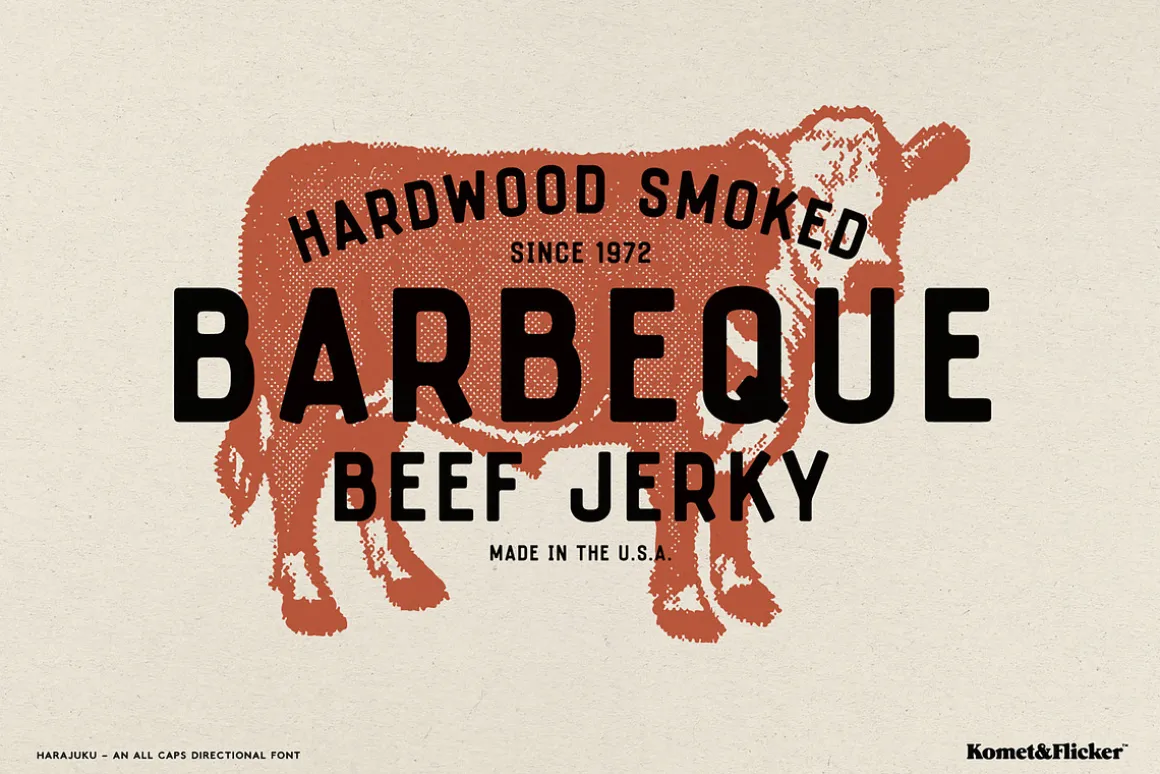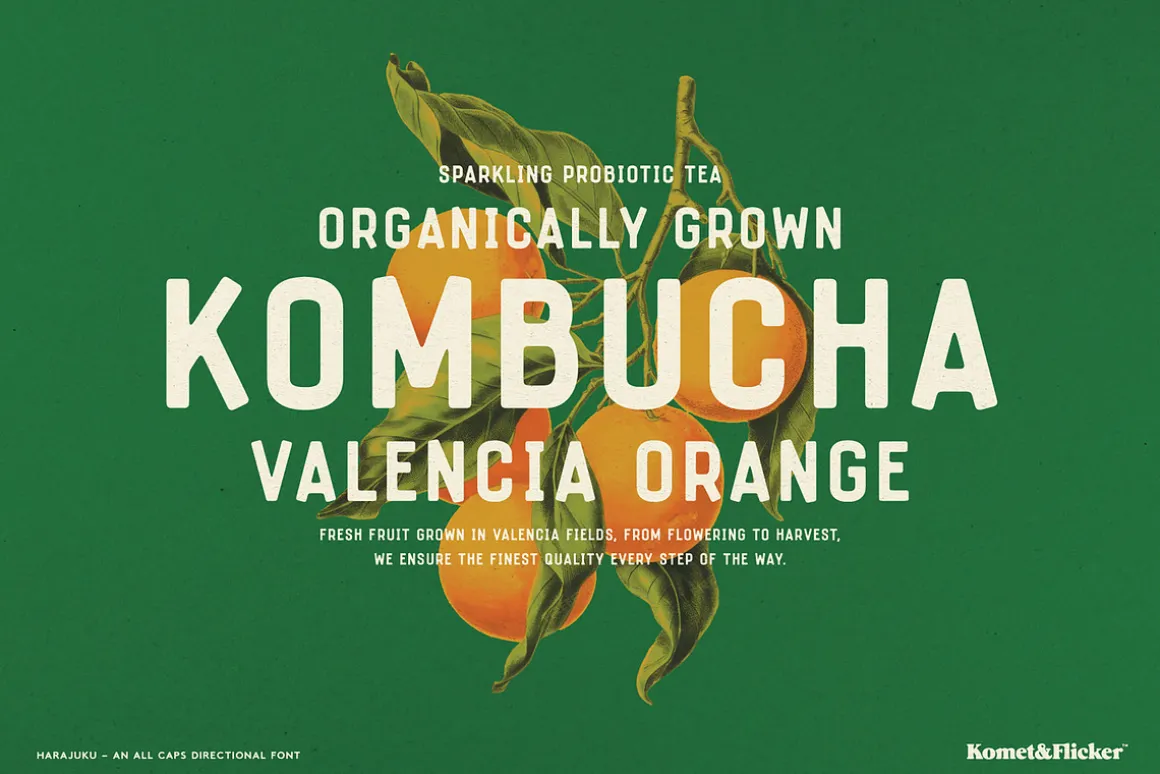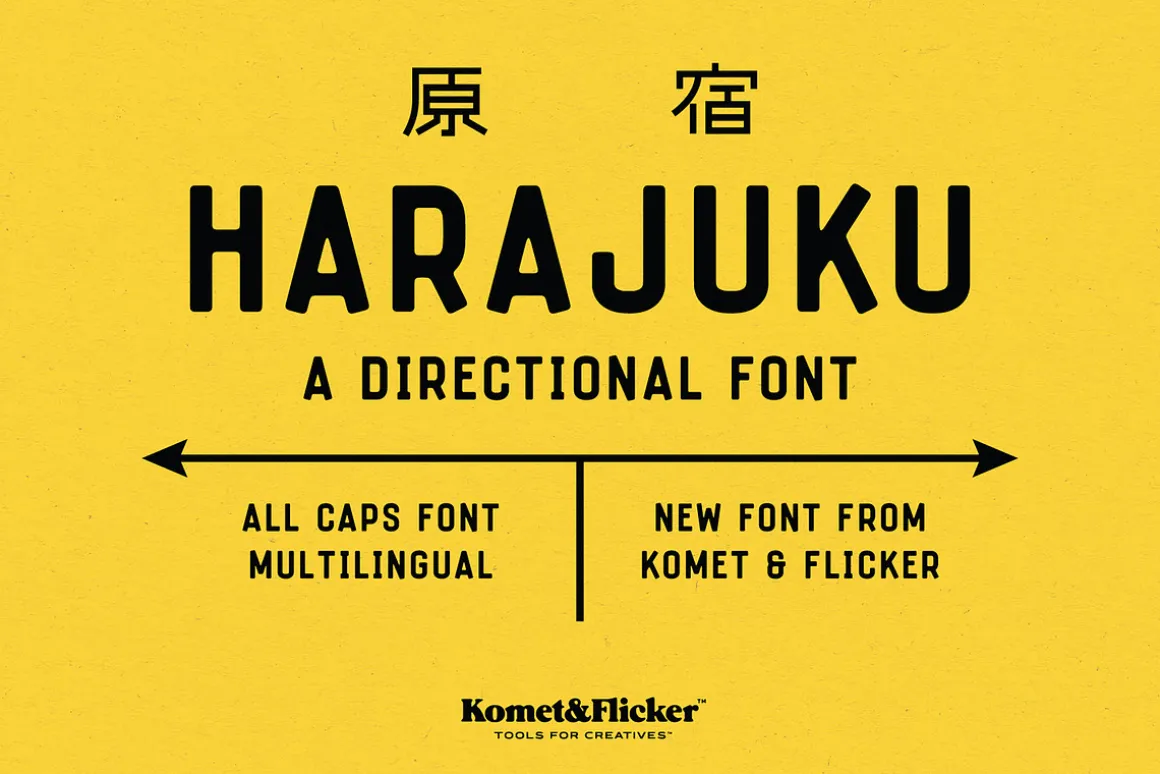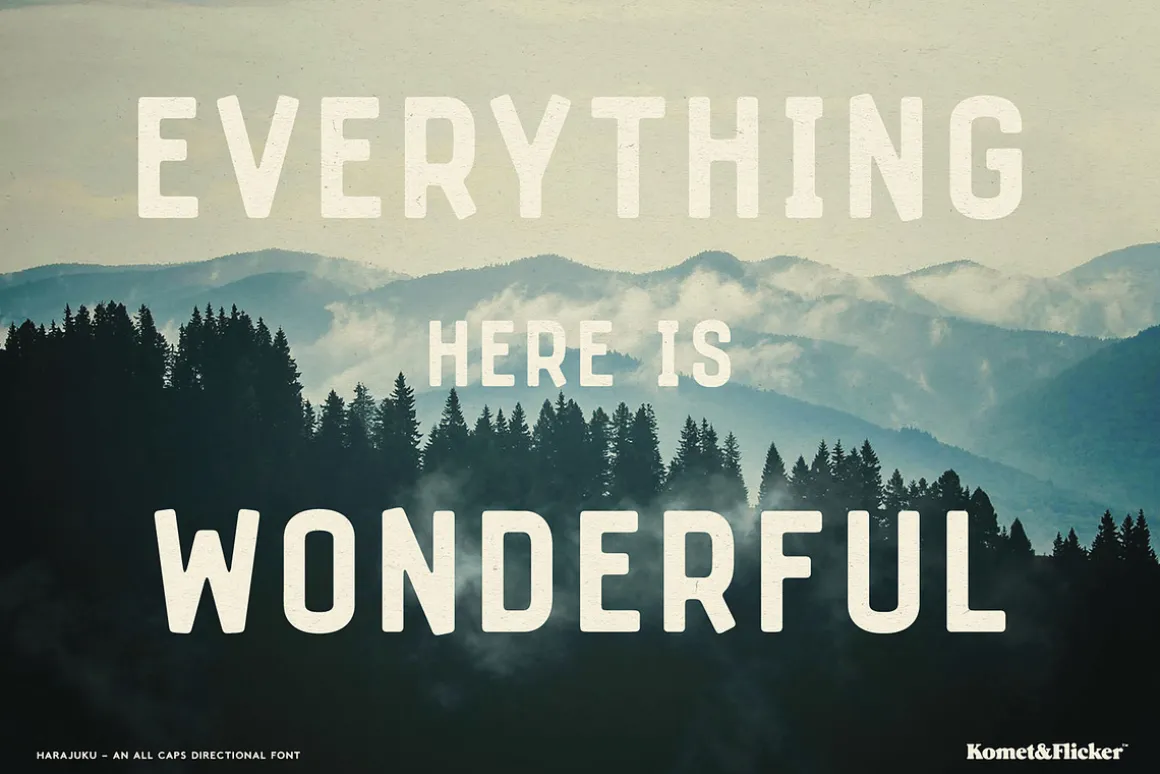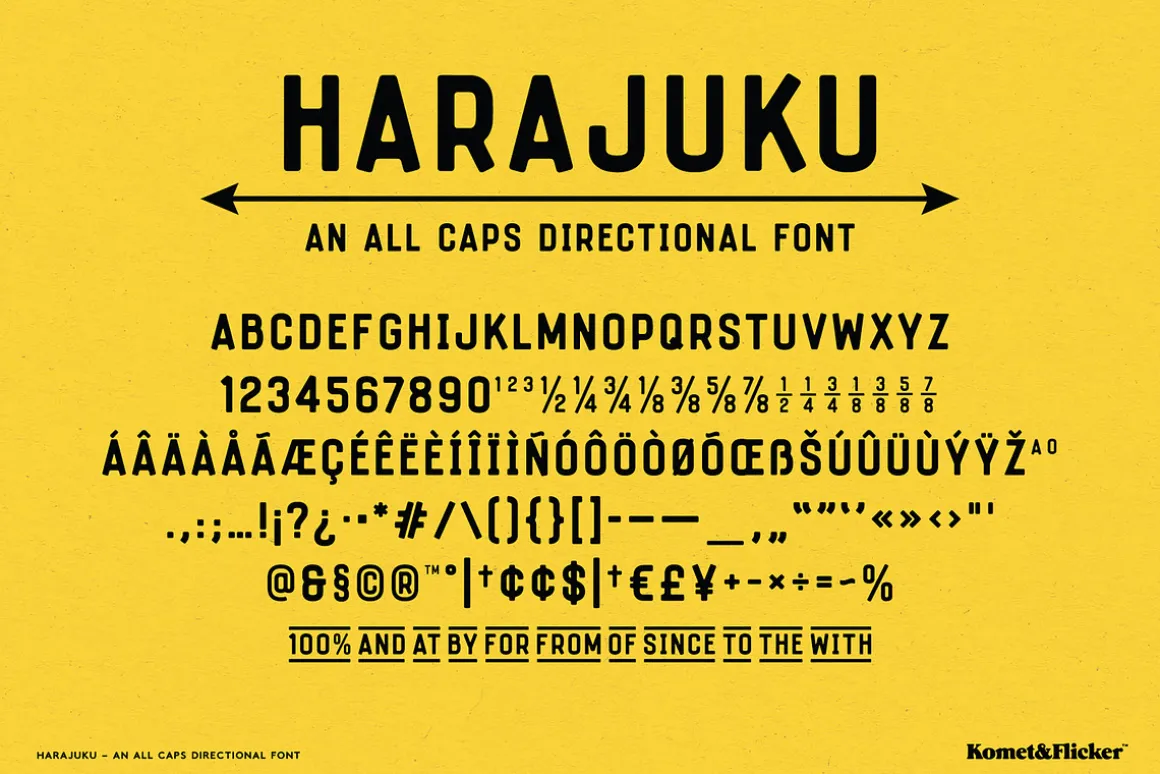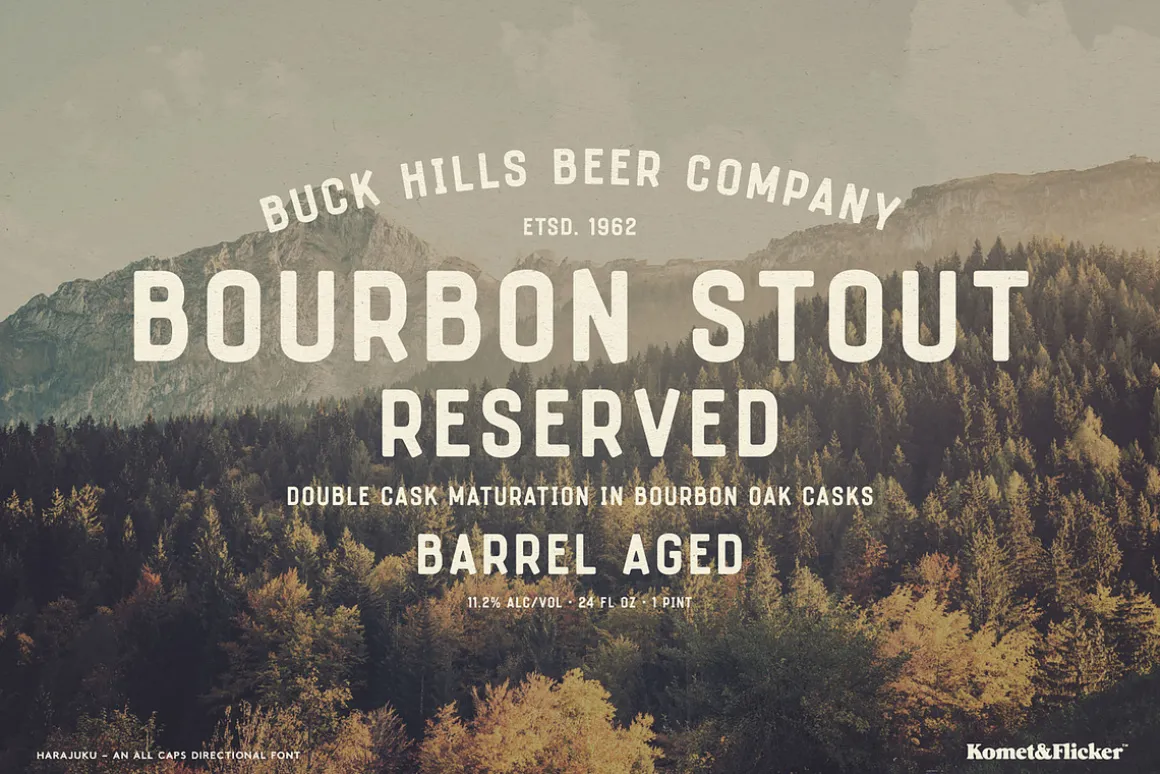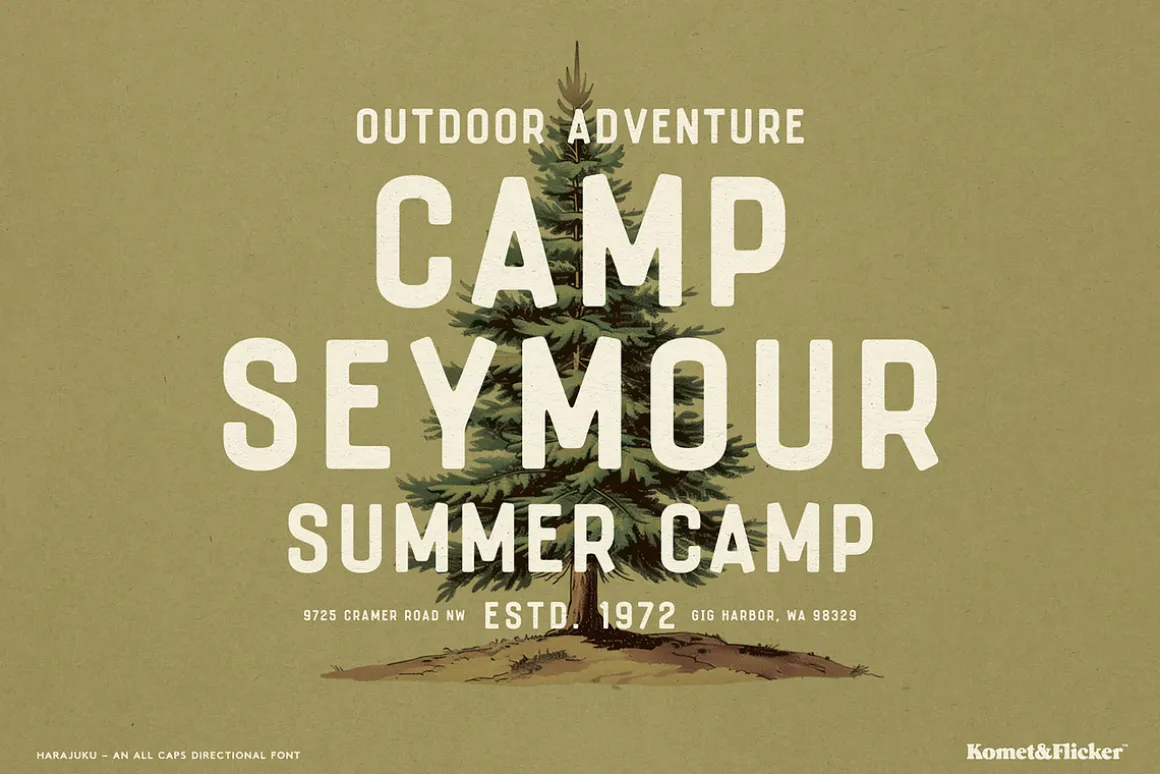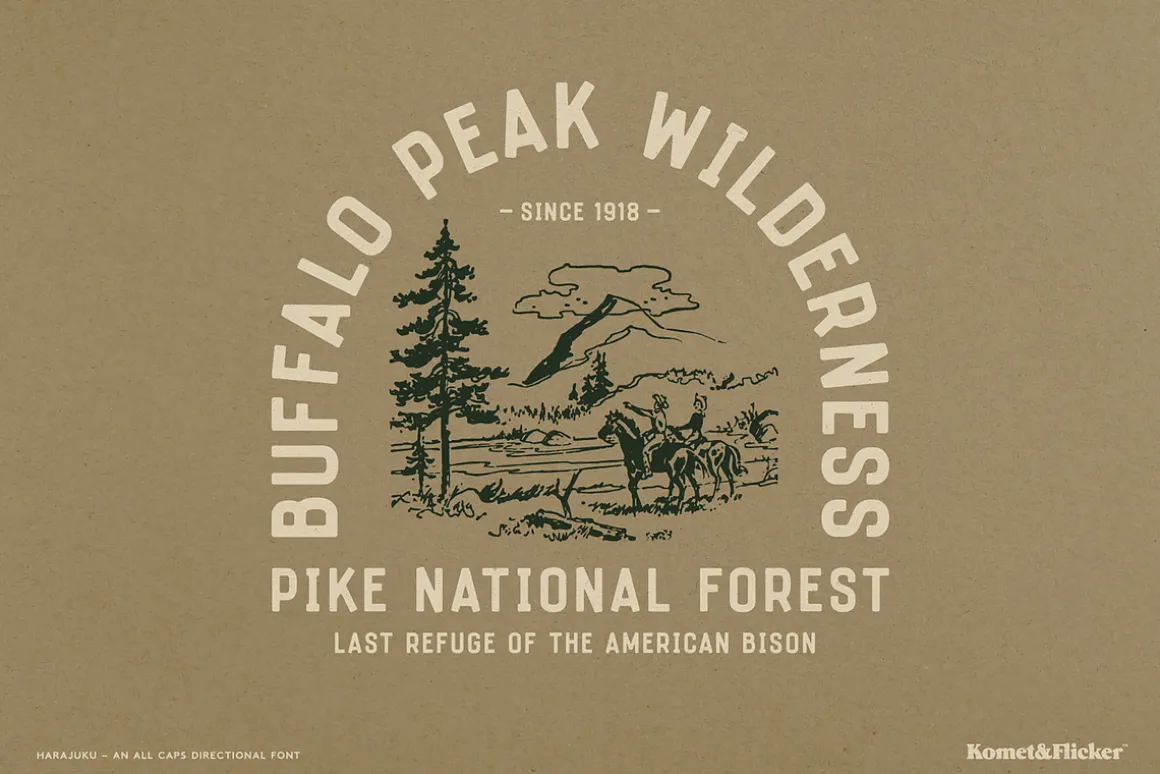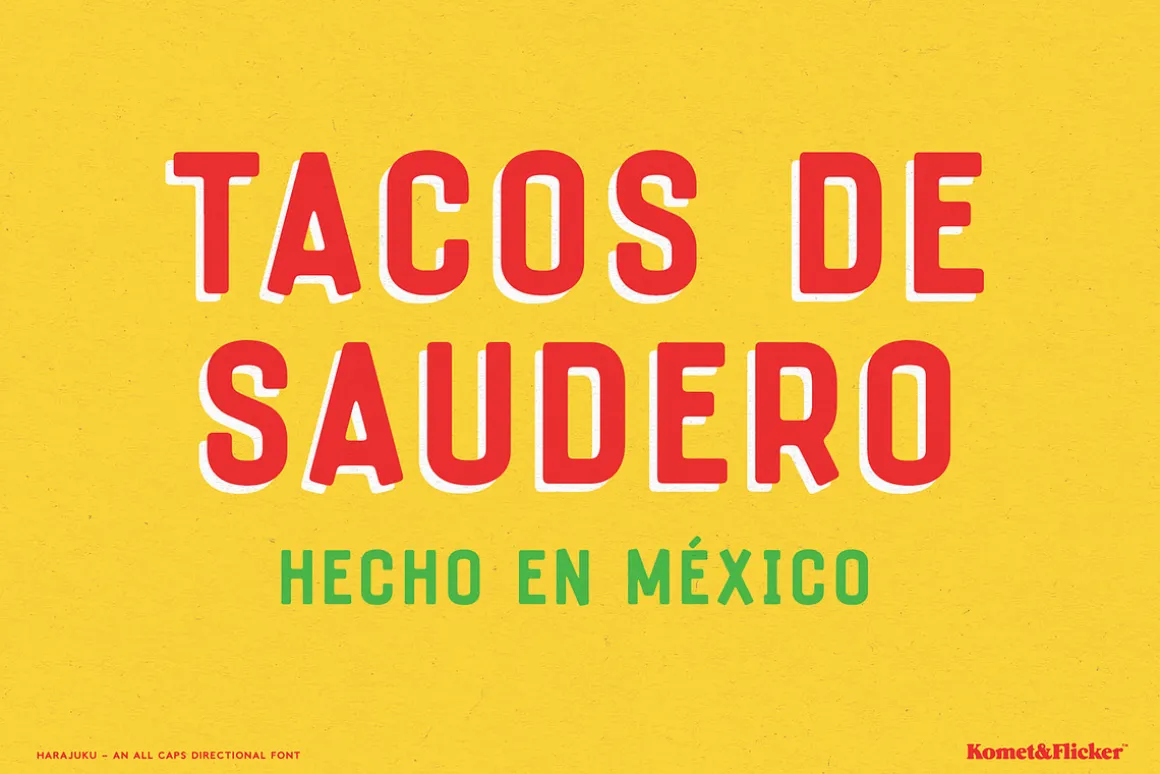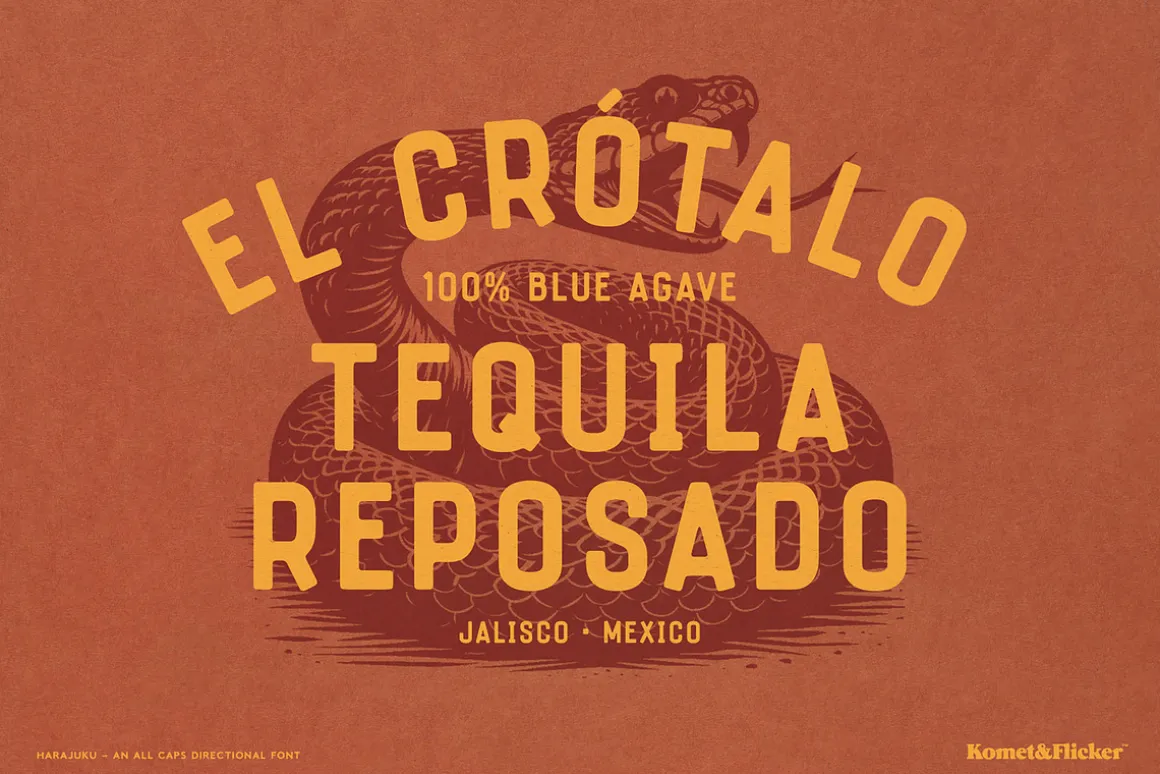
Harajuku is a bold, all-caps sans serif font inspired by the unique typography found on Japanese street signs. Its straightforward geometry and soft letterforms echo the clarity and confidence of urban wayfinding, while subtle design details give it a distinctive edge. Perfect for headlines, posters, branding, and editorial work, Harajuku delivers a sense of bold direction and metropolitan style.
And to add even more flexibility and charm, Harajuku includes a set of 11 custom connecting words (such as: and, the, of, with. These pre-made connector words make it easy to create smooth, cohesive typography with a natural, flowing feel.
Full A-Z uppercase basic latin characters
Select European specific characters
Numbers, punctuation, and select symbols
Pre-made common fractions in two styles
Set of 11 custom connecting word glyphs